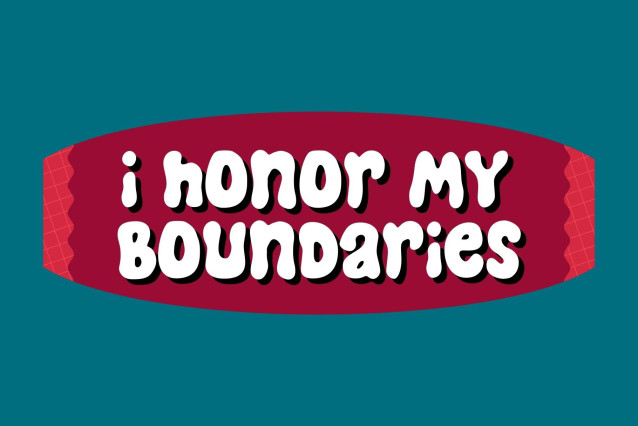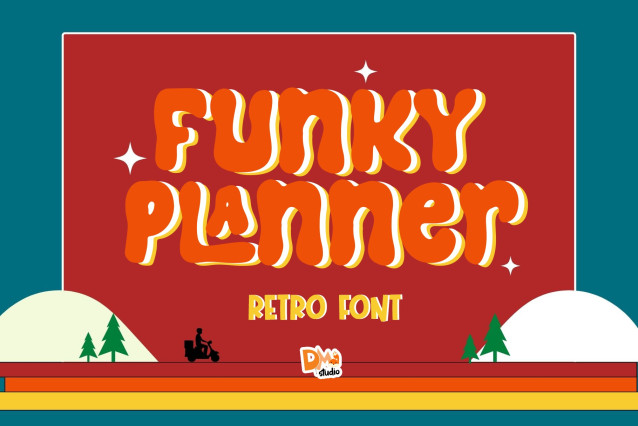
Funky Planner Font
Funky Planner Font is a vibrant handwritten font full of personality and charm. With chunky strokes, fun curves, and an upbeat attitude, it’s ideal for planners, bullet journals, sticker designs, social media graphics, and kids’ projects. This font adds a quirky and expressive touch to any layout!